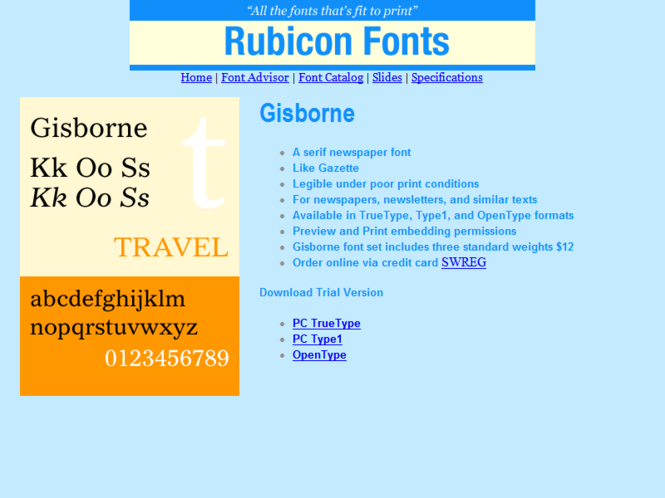
Serif newspaper font with mass appeal. Like Gazette. Legible under poor print conditions. For newspapers, newsletters, and similar texts. Recommended size 8.5 points. Accurate and hinted, matching font metrics, standard character set, kerning pairs. Professional print quality for inkjet, laser, typesetter to 3500 dpi. Purchasers receive 3 font variants as follows: Roman, Italic, Bold.